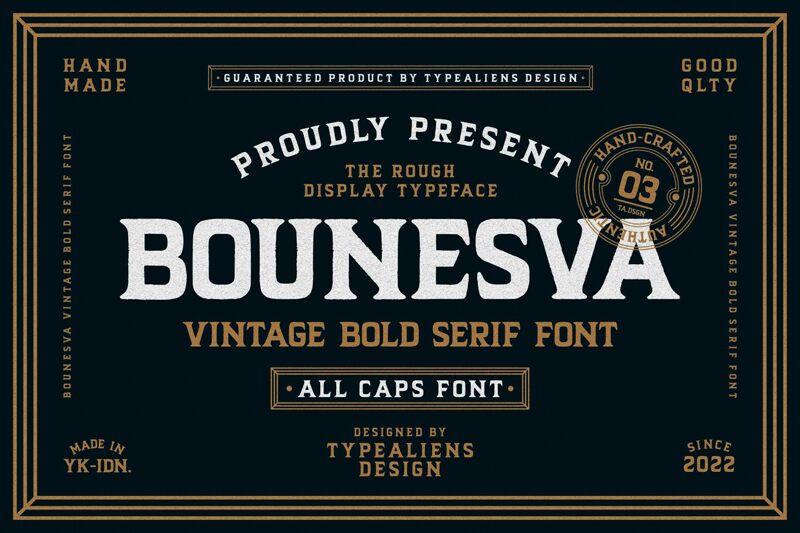
Bounesva font is an antique-inspired typeface with a unique rugged texture designed by Typealiens. This bold display font has a retro style and a distressed vintage appeal. Each character has an industrial feel reminiscent of old worn letters typical in advertising and signage of the past. The equally wide glyphs further ensure consistency in text length no matter what characters the designer uses; an advantage for creating precise layouts.